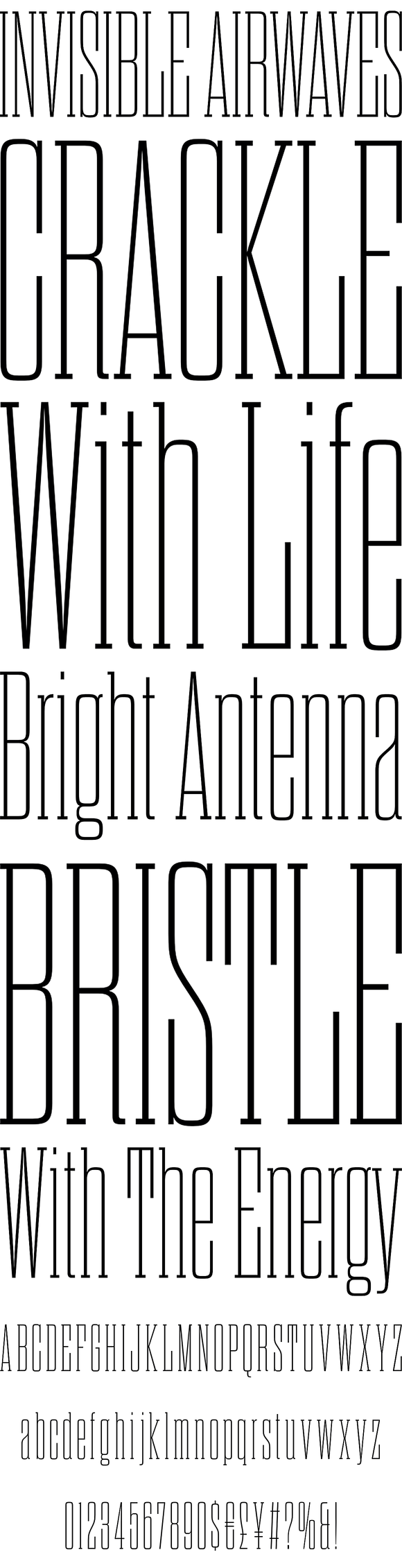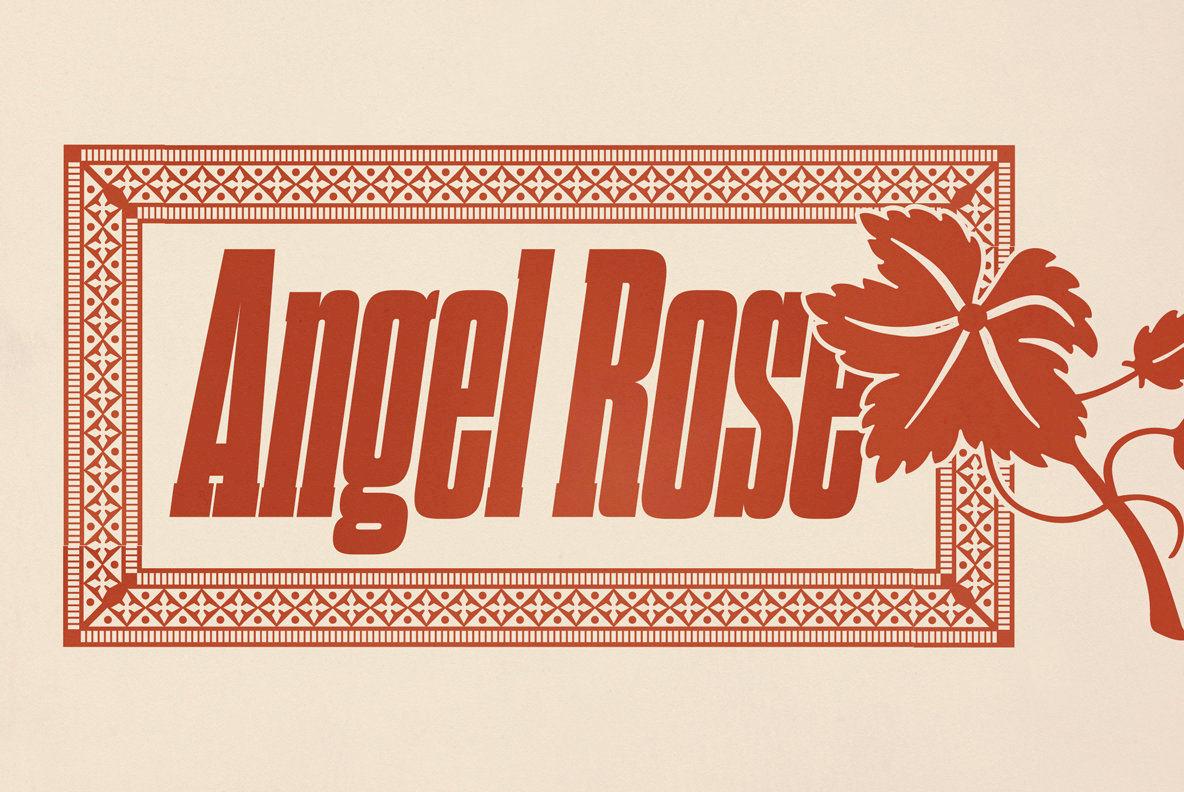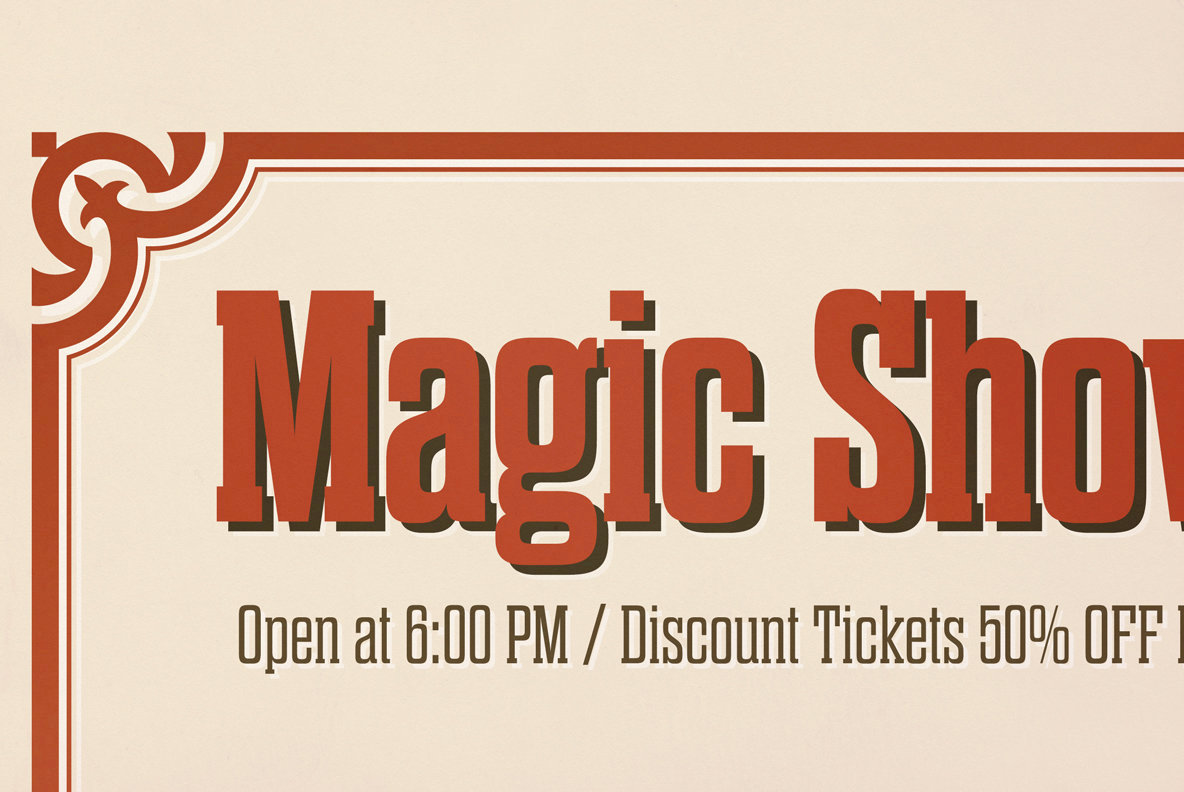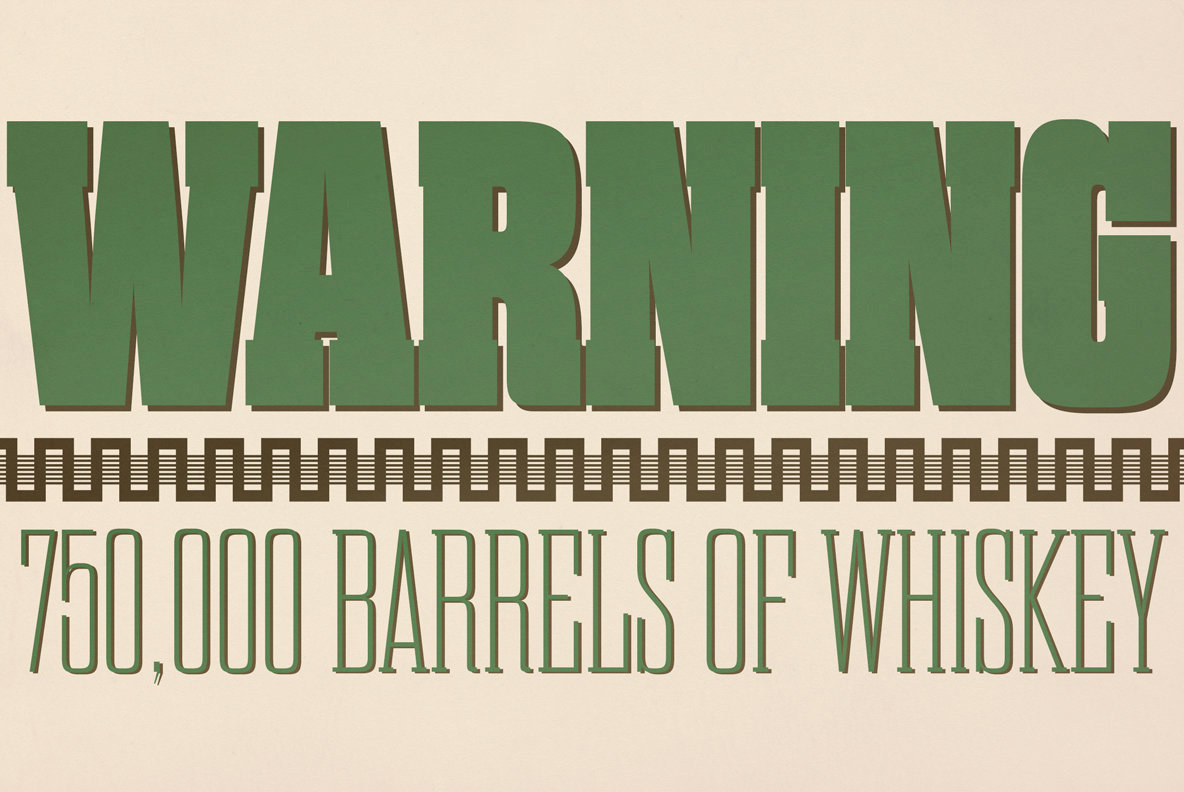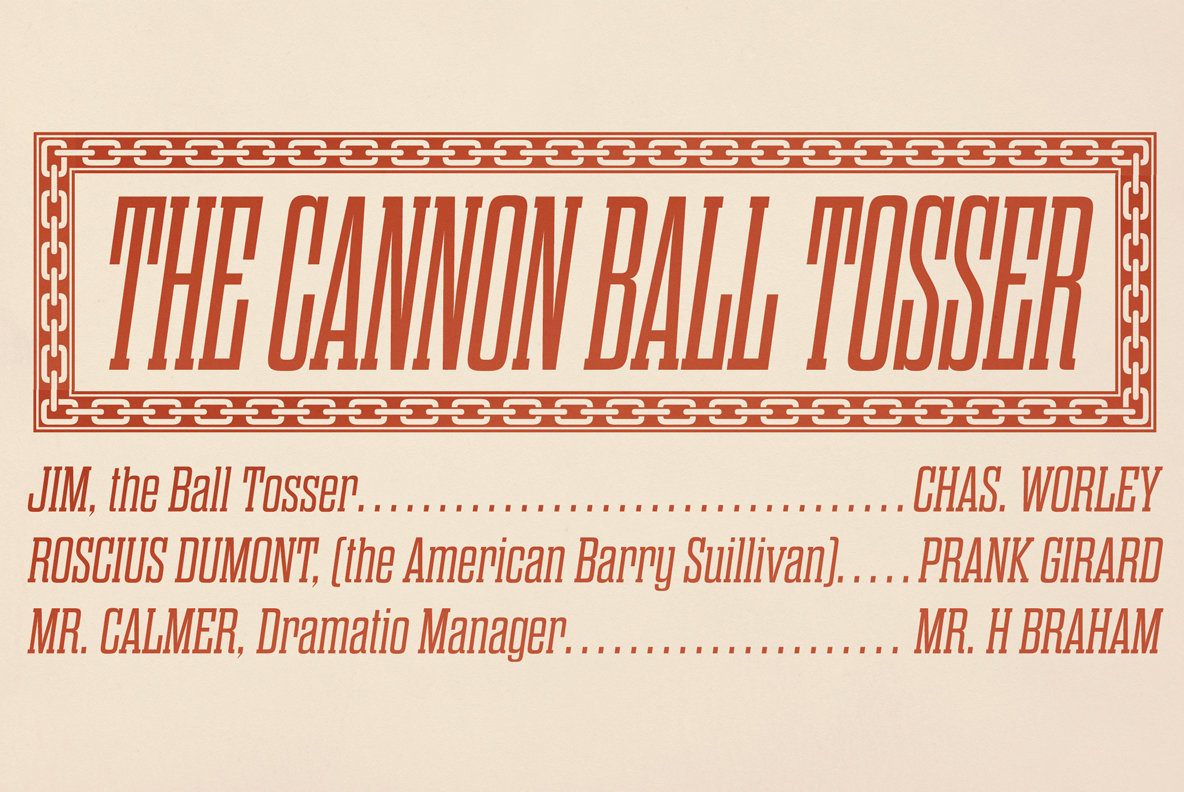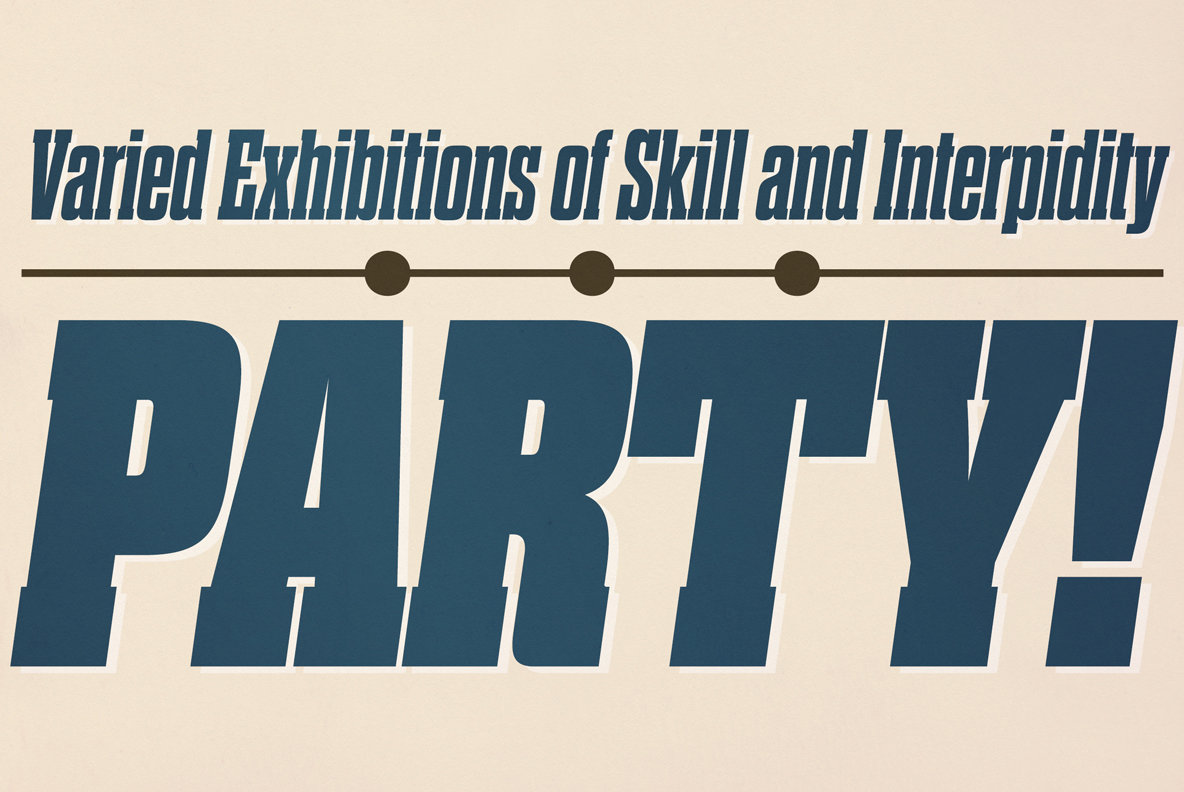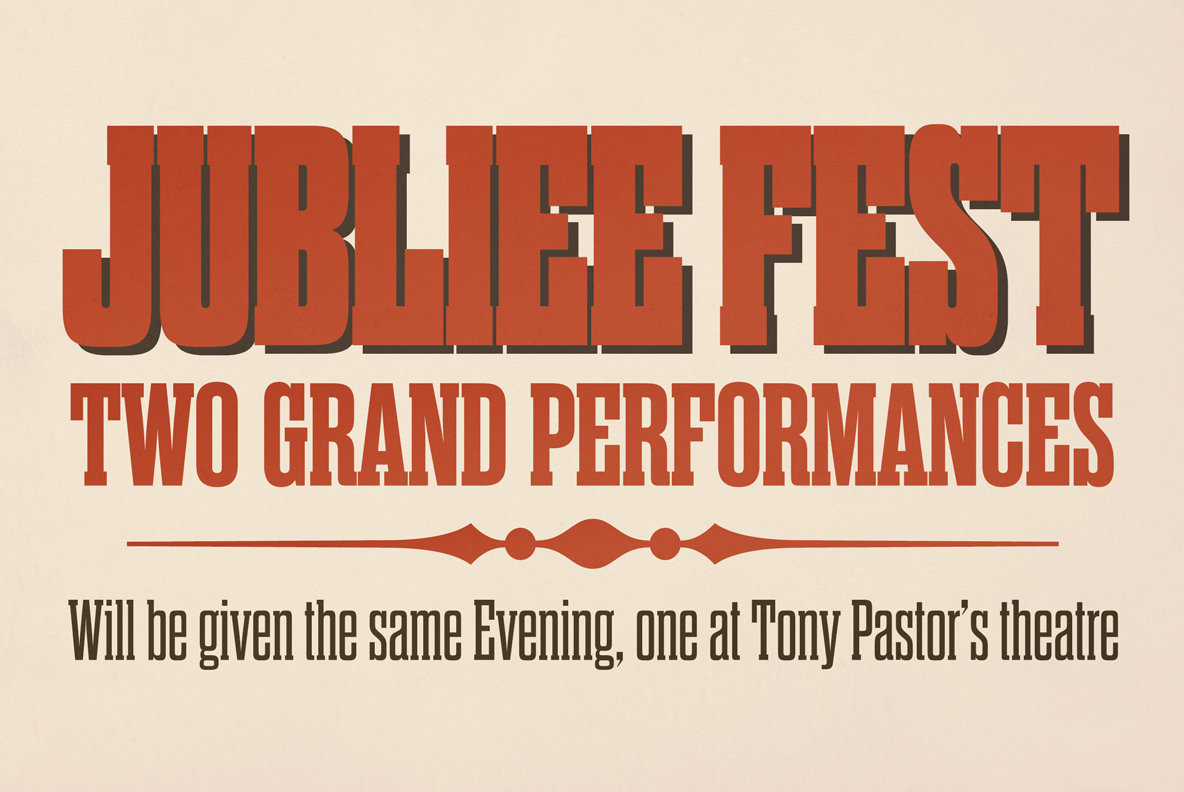
Dharma Slab
Dharma Slab is an antiqued slab serif designed inspired by 1800s-style wood type. All glyphs had been designed carefully to be retro-looking of the old time and to fill all with nostalgia.
Dharma Slab is an antiqued slab serif designed inspired by 1800s-style wood type. All glyphs had been designed carefully to be retro-looking of the old time and to fill all with nostalgia. This condensed font family with 42 styles will be the best solution for posters, titles and anywhere you need impact. To complete your work perfectly, Gothic Extras family is ready for free. They include borders, ornaments and frames designed using vintage catalog of Hamilton in 1800s as a model. Incidentally, g, r and y has their alternative glyphs that can be available with OpenType salt feature and tabular figures can be available with tnum feature.